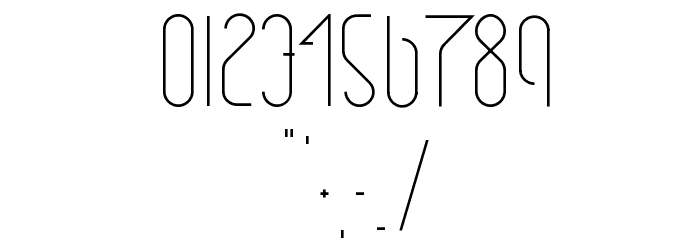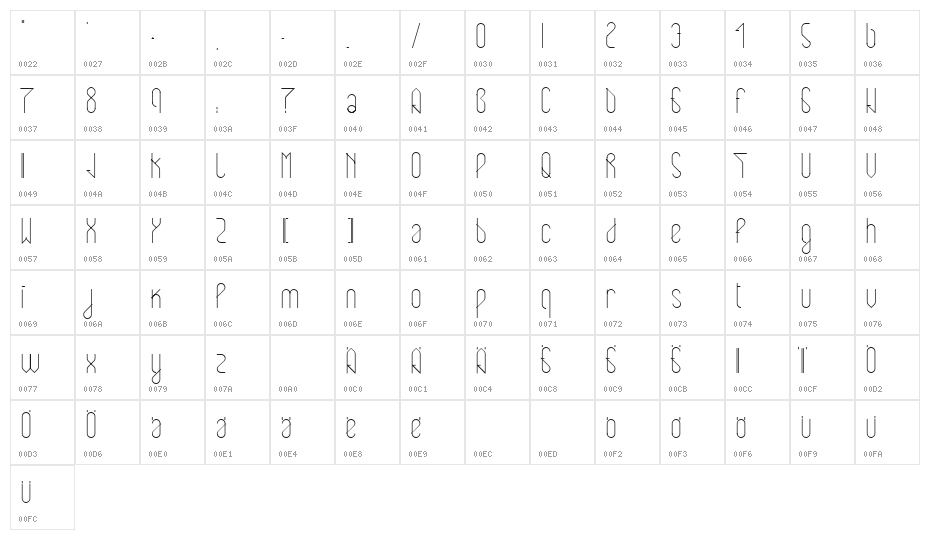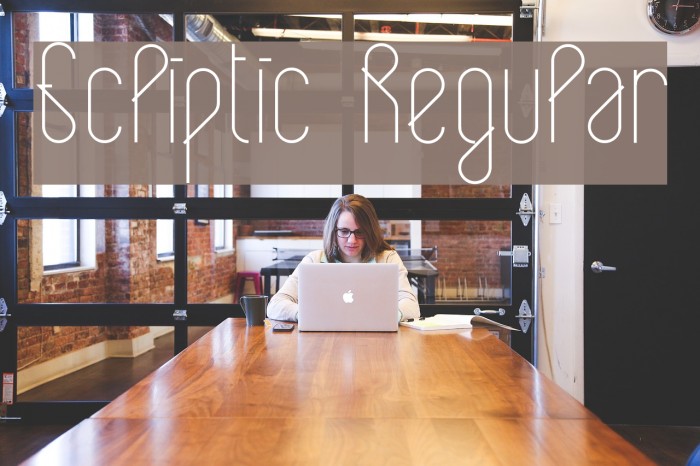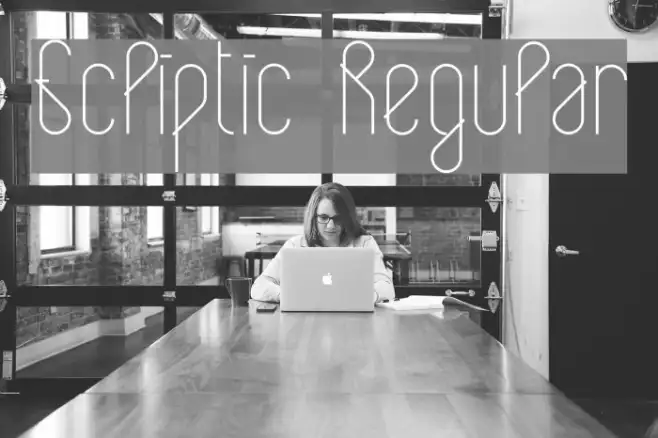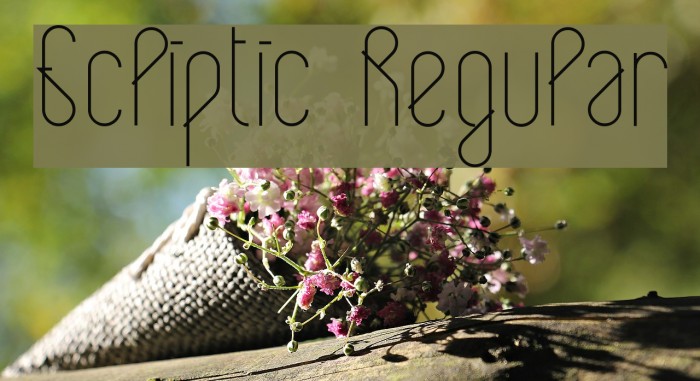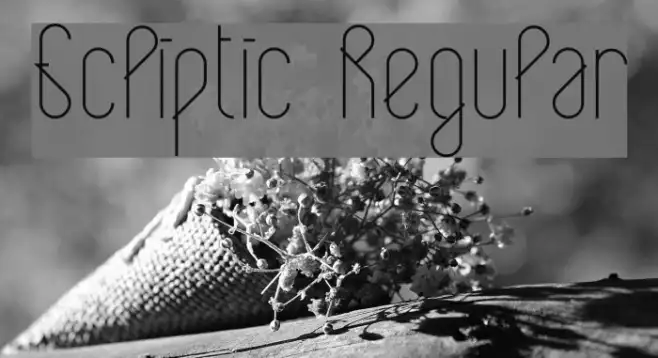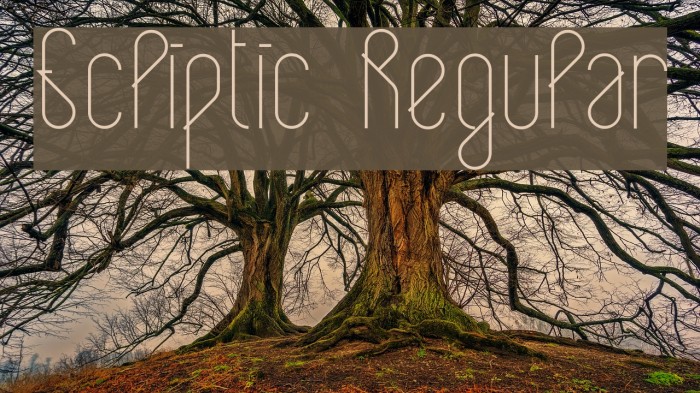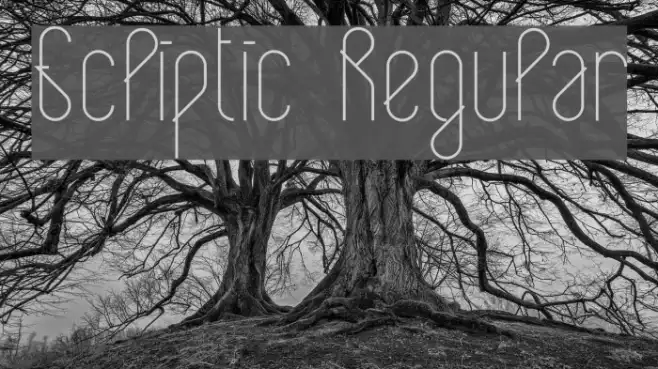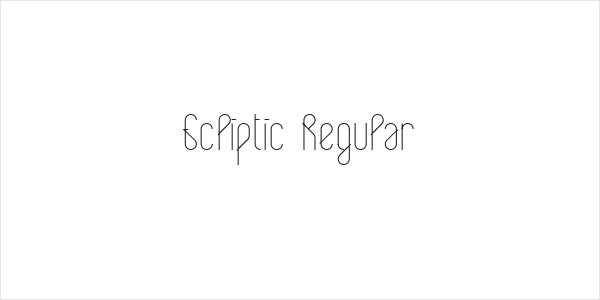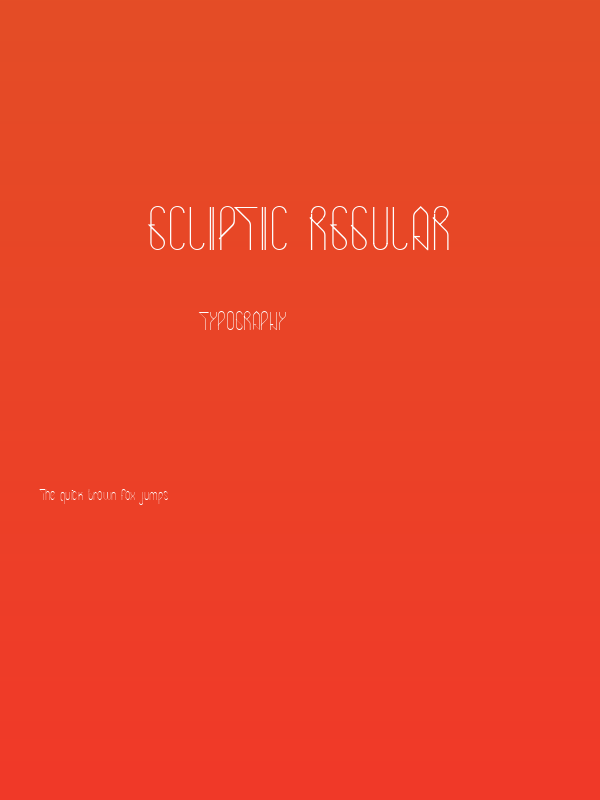
Ecliptic Regular Font
Ecliptic Regular Description
This font features a unique and modern design with geometric elements and a minimalist aesthetic. The characters are composed of thin, straight lines with angular cuts, creating a futuristic and sleek appearance. The uppercase letters exhibit a strong architectural influence, while the lowercase letters maintain a consistent style with subtle curves. The numerals are distinct and align well with the overall design, enhancing readability. Special characters are crafted with the same attention to detail, ensuring a cohesive look across all glyphs.
| Use Case | Logos, Headlines, Editorial Design |
| Proposed Projects | Ideal for branding, logos, and editorial design where a modern and sophisticated look is desired. Suitable for tech-related projects, fashion magazines, and innovative product packaging. |